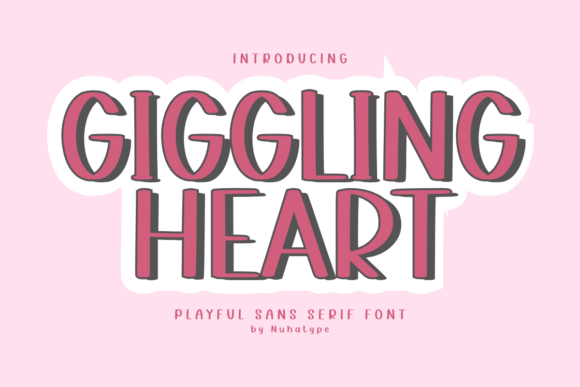
Giggling Heart: A Font for Warm, Handcrafted Editorial Design
Where to Use Giggling Heart in Your Work
Giggling Heart works beautifully in a variety of editorial applications:
Supporting Visual Hierarchy and Reader Engagement
In editorial design, visual hierarchy plays a key role in guiding the reader through your content. Giggling Heart supports this by adding personality to headings and subheadings without overwhelming the body text.
For instance, using Giggling Heart for section headings in a digital magazine can create a cohesive style that ties the entire publication together. When paired with a clean sans serif font for body copy, it ensures readability while maintaining a warm, inviting tone.
Its soft curves also make it great for pull quotes and quote graphics. Whether you're highlighting a key message or adding a touch of personality to a newsletter, Giggling Heart helps draw the eye and keep readers engaged.
Readability Considerations
While Giggling Heart is designed for readability, it's important to consider how it performs across different formats:
Font Pairing for Editorial Use
To create balanced layouts, consider pairing Giggling Heart with other fonts that complement its style:
Experimenting with these combinations can help you find the right balance between style and functionality, ensuring your design remains both attractive and easy to read.
When working with clients or creating digital products, consider including Giggling Heart as part of your design assets. Its versatility makes it a valuable addition to any designer's toolkit, especially for those focused on brand identity and creative fonts.
Final Thoughts on Giggling Heart
Giggling Heart is more than just a font—it's a tool for creating warm, engaging editorial designs. Its friendly style and strong readability make it a standout choice for bloggers, publishers, and designers looking to connect with their audience through thoughtful typography.